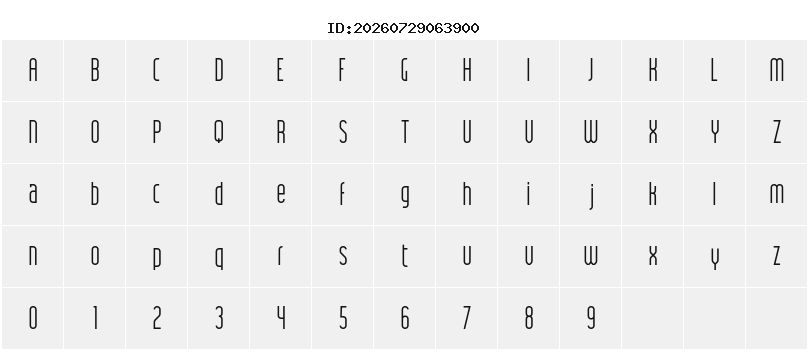
JK Polar Demo Preview
• Font Name: JK Polar Demo
• Designer: Jacob King
About JK Polar Demo.otf
JK Polar Demo.otf is a modern, elegant sans-serif font designed for ultimate readability and visual harmony. Perfect for branding, headlines, web design, and print materials.